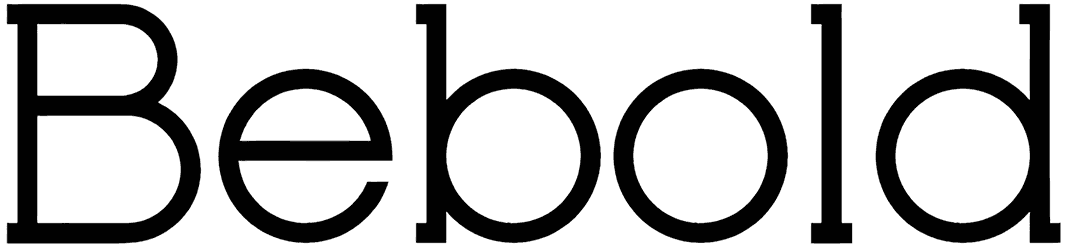
Bebold Font
For a moment, picture your typography decorated in this standard Bebold slab serif font with delicate letters while representing classic effect, as delightful as it sounds to you, it will be identical for all your onlookers. So, considering it does not reach numbers and punctuations, do not pause to combine it in your headline, book covers, movie titles, branding, and anything else cheerfully.